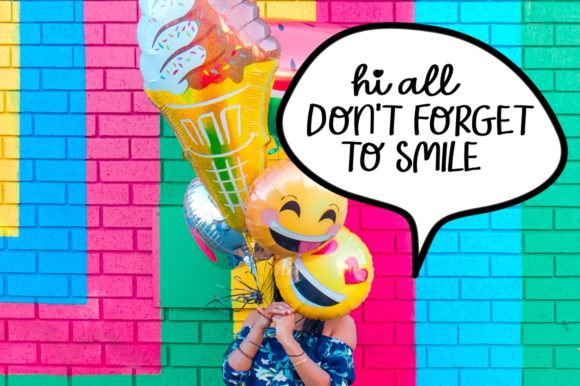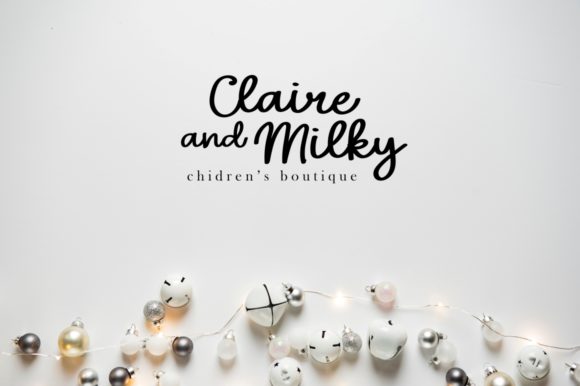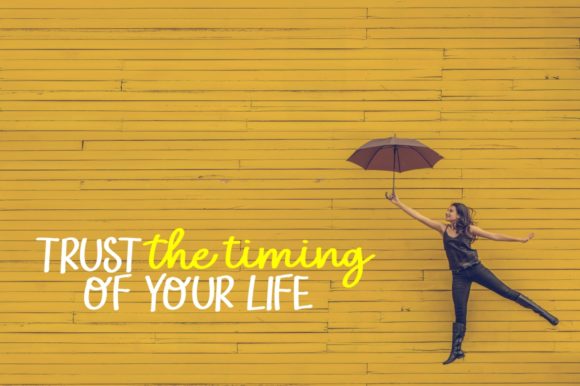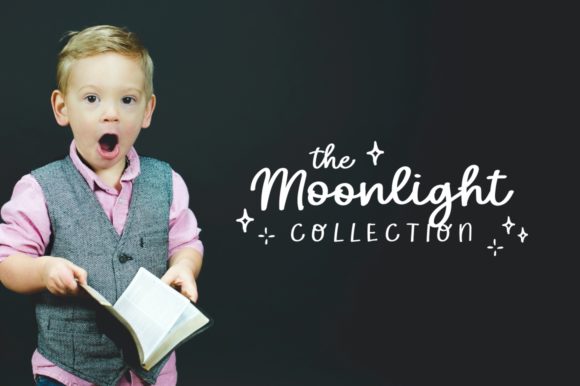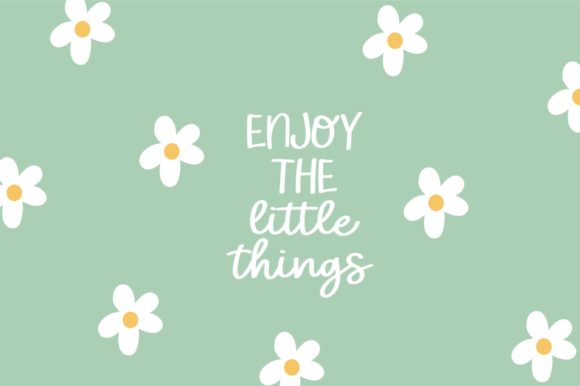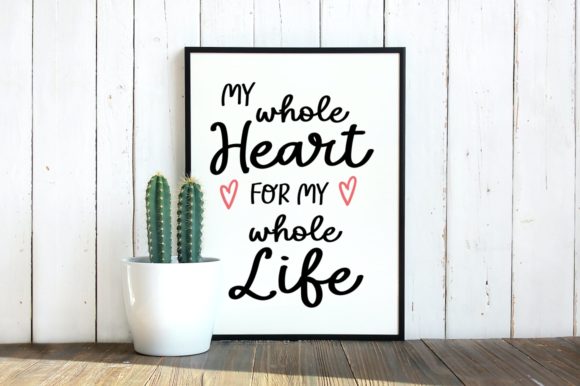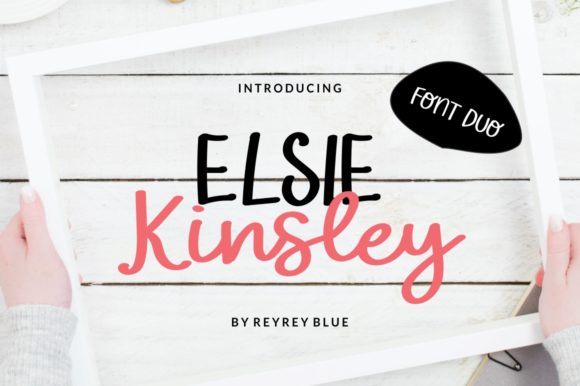
Introducing Elsie Kinsley Font: A Sweet and Modern Handwritten Font Duo
Are you a designer or crafter looking for a font that can add a touch of sweetness and modernity to your projects? Look no further than Elsie Kinsley Font! This delightful font duo is perfect for creating type-based designs, branding, websites, merchandise, packaging, quotes, invites, greetings, and more.
What is Elsie Kinsley Font?
Elsie Kinsley Font is a carefully crafted font duo that consists of two lovingly handwritten fonts. The fonts have a fun and modern vibe, making them ideal for designers and crafters who want to add a personal touch to their work. The fonts are highly versatile and can be used for a wide range of projects, from digital designs to print materials.
Key Features of Elsie Kinsley Font
• Handwritten style: Elsie Kinsley Font has a beautiful, handwritten style that adds a personal touch to any project.
• Font duo: The font comes with two complementary fonts that can be used together or separately.
• Modern vibe: The fonts have a fun and modern vibe that makes them perfect for contemporary designs.
• Highly versatile: Elsie Kinsley Font can be used for a wide range of projects, including type-based designs, branding, websites, merchandise, packaging, quotes, invites, greetings, and more.
Uses of Elsie Kinsley Font
Elsie Kinsley Font is perfect for a variety of projects, including:
• Type-based designs: Create stunning type-based designs, such as posters, flyers, and brochures.
• Branding: Use Elsie Kinsley Font to create a unique and memorable brand identity.
• Websites: Add a personal touch to your website with Elsie Kinsley Font.
• Merchandise: Create eye-catching merchandise, such as t-shirts, mugs, and tote bags.
• Packaging: Use Elsie Kinsley Font to create beautiful and functional packaging.
• Quotes: Create inspiring quotes and posters with Elsie Kinsley Font.
• Invites: Design beautiful and unique invitations for special occasions.
• Greetings: Create personalized greeting cards and messages.
Benefits of Using Elsie Kinsley Font
By using Elsie Kinsley Font, designers and crafters can enjoy several benefits, including:
• Unique and personalized designs: Elsie Kinsley Font allows designers and crafters to create unique and personalized designs that stand out from the crowd.
• Time-saving: The font duo is highly versatile and can be used for a wide range of projects, saving designers and crafters time and effort.
• Professional-looking designs: Elsie Kinsley Font is designed to create professional-looking designs that are perfect for both digital and print materials.
Tips for Using Elsie Kinsley Font
Here are some tips for using Elsie Kinsley Font:
• Experiment with different font combinations: Try pairing Elsie Kinsley Font with other fonts to create unique and interesting combinations.
• Use the font duo together or separately: Use both fonts together or separately to create a variety of different designs.
• Add a personal touch: Use Elsie Kinsley Font to add a personal touch to your designs and make them more relatable.